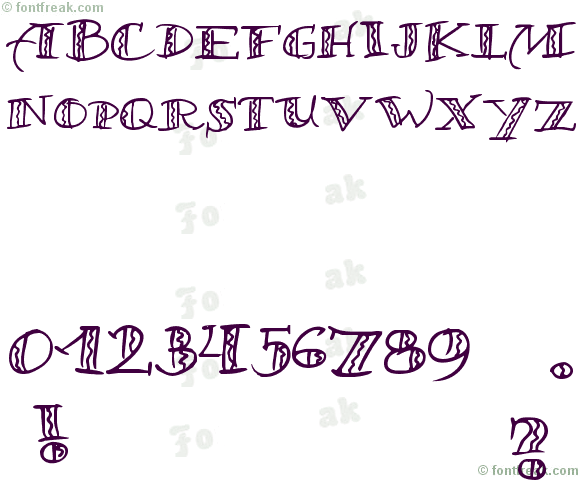
Samba!
Samba! — Character Map
About Samba
Samba is a delightful display font designed by Anke Art, characterized by its whimsical, hand-drawn aesthetic. This decorative font embodies a playful spirit, making it an excellent choice for various creative projects. With its unique blend of organic curves and lively strokes, Samba features a medium stroke weight and a balanced contrast that adds a charming touch to any design. The letters are spaciously arranged, allowing for easy readability while maintaining an artistic flair. The playful and slightly irregular forms give Samba an inviting warmth, making it perfect for projects that seek to capture attention.
Best suited for wedding invitations, Samba adds a touch of romance and fun to any special occasion. It can also elevate the visual appeal of restaurant menus, where its distinctive style can reflect the ambiance of the dining experience. Additionally, Samba works wonderfully for event posters, helping to create a vibrant atmosphere that draws in participants. Graphic designers and small business owners will find this font particularly useful in branding efforts, as its unique look can help make a memorable impression. Content creators can also leverage Samba for social media graphics, ensuring their posts stand out in crowded feeds.
What truly sets Samba apart is its ability to combine a professional appearance with a whimsical charm, making it versatile enough for both formal and casual applications. The Samba font free download offers an exceptional opportunity for creatives to enhance their projects without financial constraints, allowing for greater artistic freedom. Whether you're designing for a personal event or a business venture, Samba's playful character and distinctive design will surely leave a lasting impact.